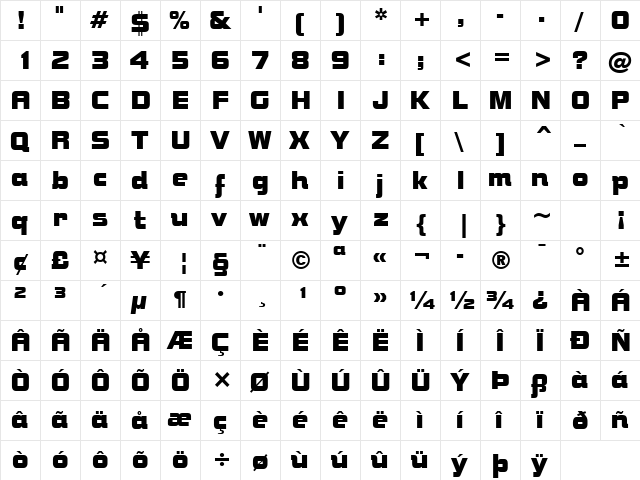
Bolt Bd BT Regular
Design Context for Bolt Bd BT Typeface
Bolt Bd BT is a composed and adaptable typeface that performs quietly and consistently across a wide range of design contexts. The heavy weight commands attention and anchors typographic hierarchies.